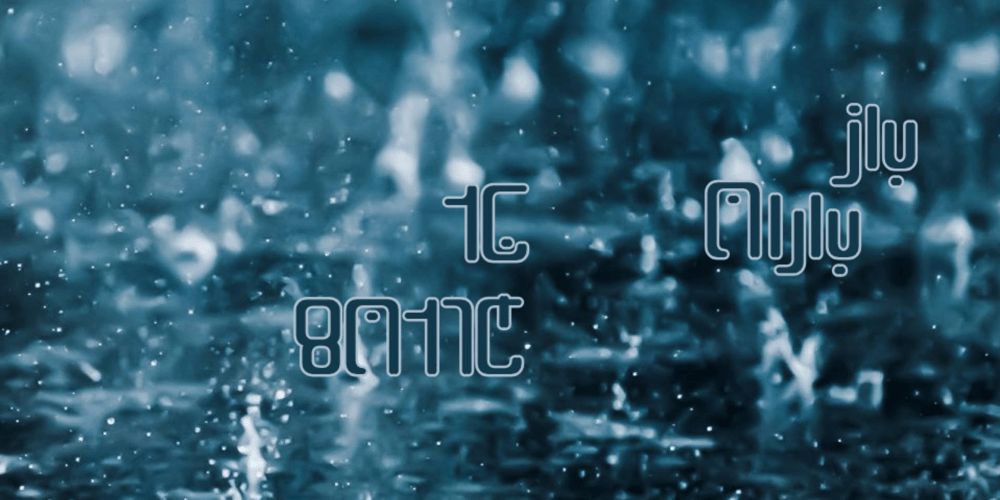
Bazbaran Font Family was designed by Aria Fakhari and published by Fakharia. Bazbaran contains 5 styles and family package options. BazBaran (بازباران, RainAgain) font family represents my inaugural endeavor to materialize the proposed perso-arabic writing system. Diverging from conventional Arabic fonts, all five styles within this font family are designed with disconnected letterforms. The shapes of the capitalized (Isolated) letters have been modified to achieve a more unified and aesthetically pleasing visual effect.The bazbaran LP (Less Point) light denotes the dot-reduced version, wherein glyphs containing two or more dots are substituted with new dotless shapes. It is important to note that, with the exception of the bazbaran light style, all other styles utilize the reduced dots alphabet.The bazbaran MC (Mixed Case) light emulates Latin fonts, enabling typists to toggle between lowercase and uppercase letters through a software shift key. This software shift feature can be activated or deactivated by inputting two consecutive Alef_Hamza_above/Alef_Hamza_below letters. more…The final two styles consist of the Small Caps (bazbaran SC light) and All Caps (bazbaran AC light) versions within this font family.For additional font styles associated with this family, kindly consult the baz font family.